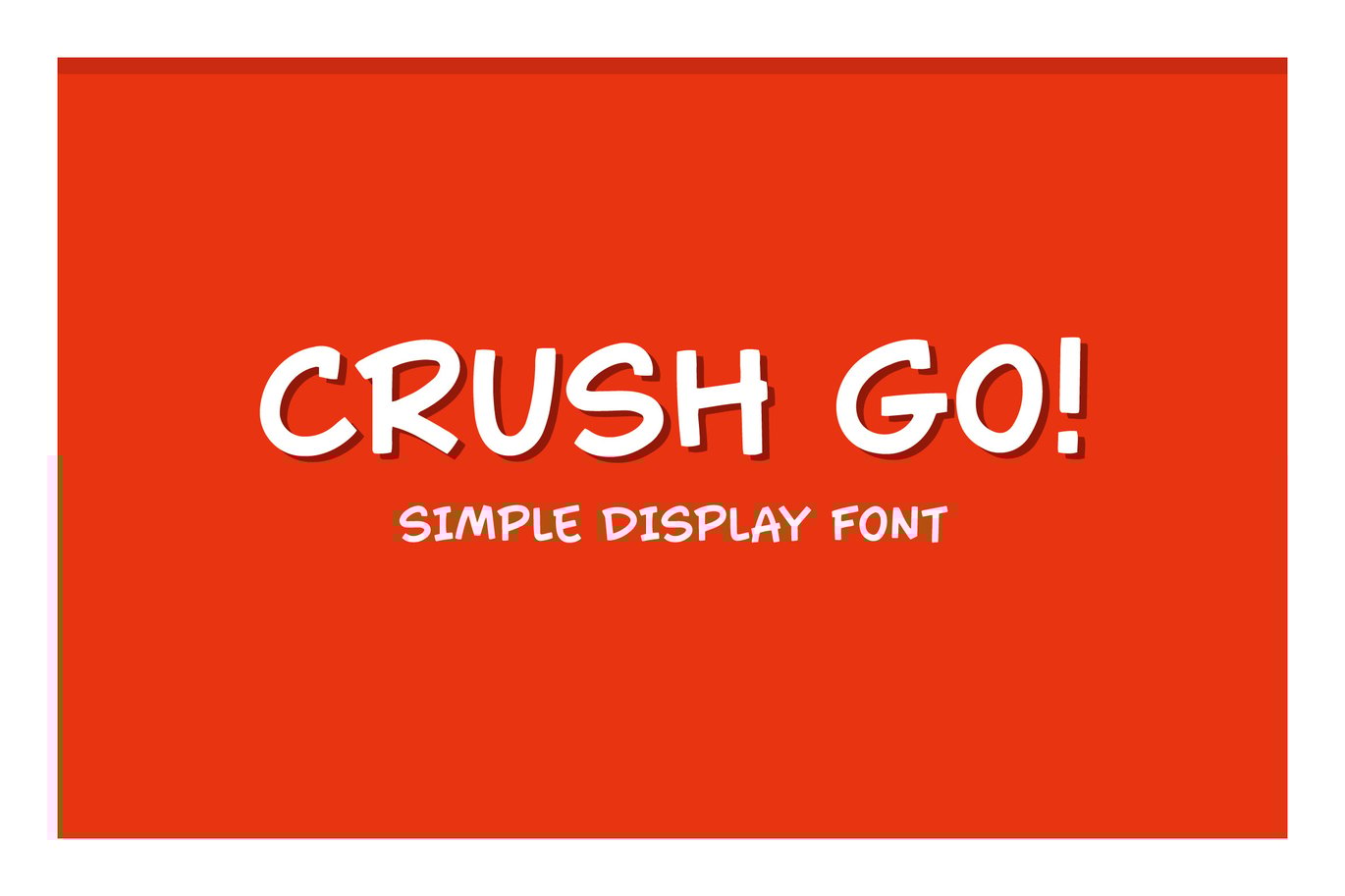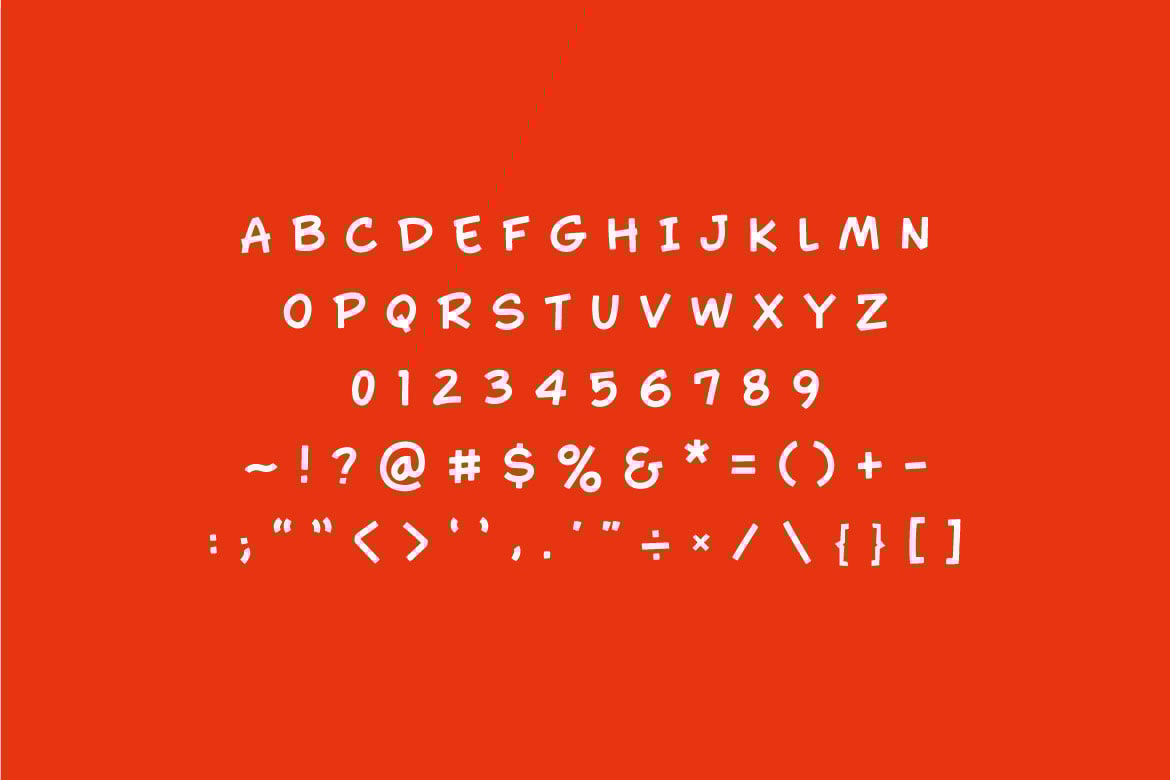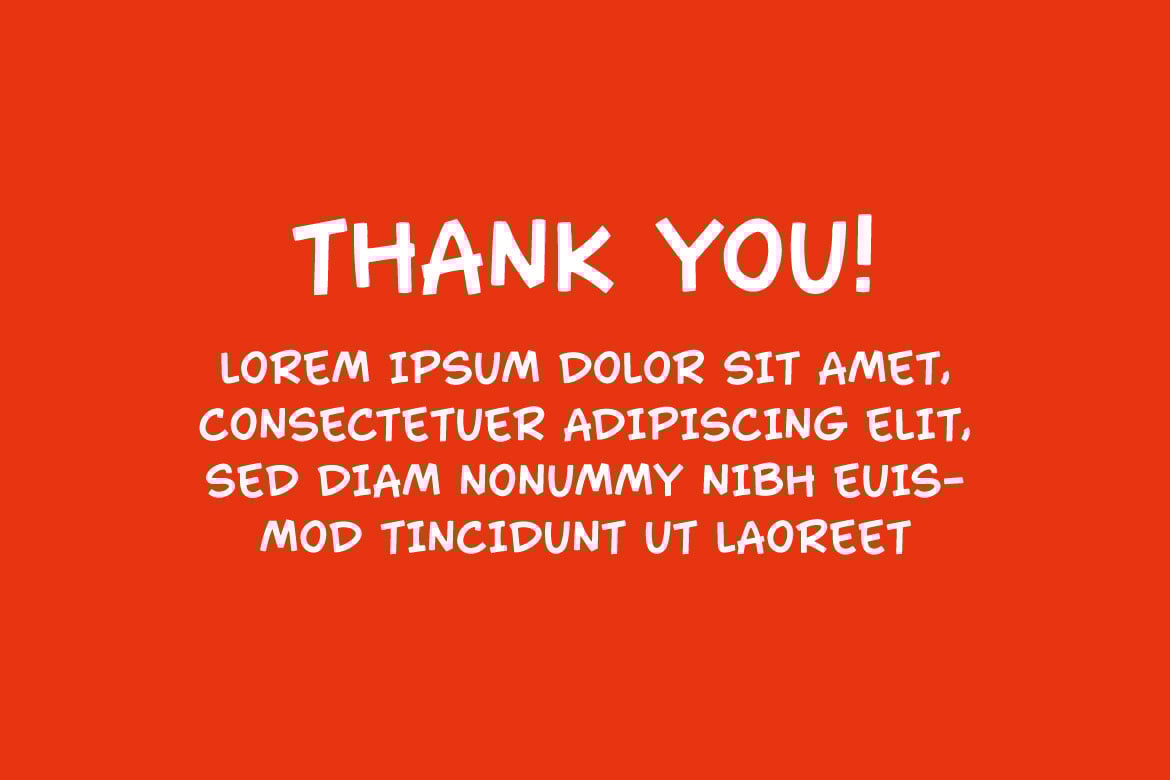
Crush Go! – Simple Display Font
If you are looking for a simple comic display font with hand made looking, meet CRUSH GO
Crush Go is perfect for any works, such as your comic, poster, card, book title, headline of news, banner, flyer, stationery and many more. It also can be used in Any scale work.